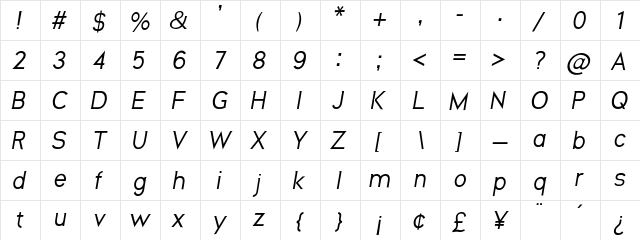
Neos Oblique Regular
Design Context for Neos Oblique Typeface
Neos Oblique offers clean, dependable letterforms without strong stylistic allegiance, making it a practical choice for designers who need flexibility. The dynamic lean of this cut emphasises speed and emphasis in any layout.